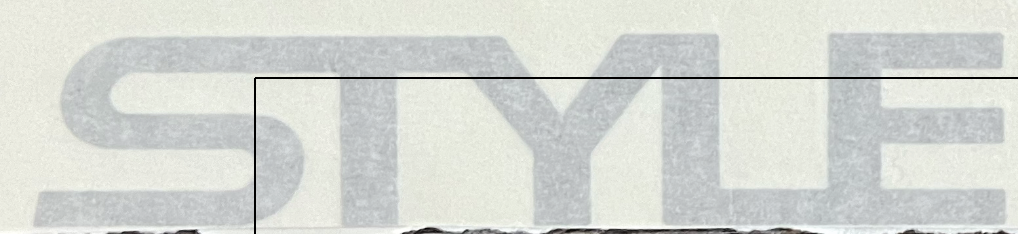
Two Fonts Needing ID
Looking for some help identifying these two fonts....
Sorry for the delay. I'm usually pretty quick at these. The first and second one look like different forms of Space Colony. With the second samples characters having negative space between them to join. If it is this font, they also highlighted the end points after rasterizing the text layer and deleted them. Making it appear sharp.